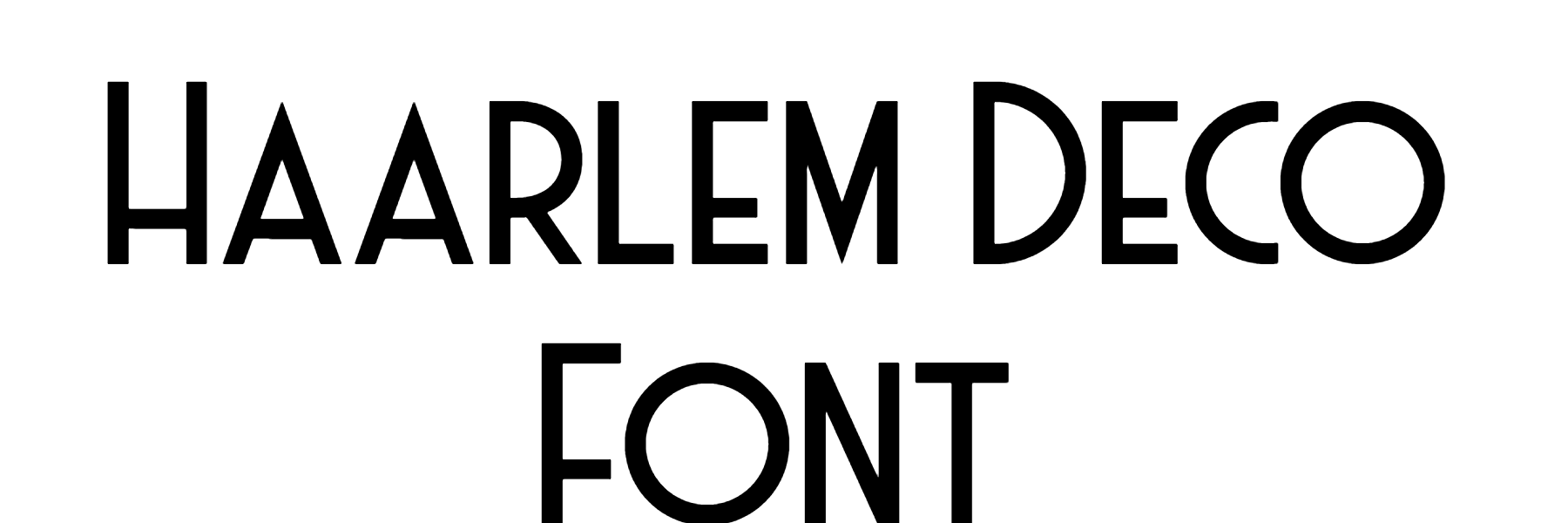
Haarlem Deco
Haarlem Deco is a fancy font made by Twicolabs Fontdation (2018). It's a decorative display font with plenty of personality, made to grab attention. It's a free download, and you can try it with your own text in the preview above first.
- Designer: Twicolabs Fontdation
- Characters: A–Z, a–z and basic punctuation
What You Can Type With Haarlem Deco
Haarlem Deco has the full alphabet in upper and lowercase. There are no numbers, so you'll need a second font for dates, prices or phone numbers. Common punctuation such as &, !, ? and @ is included as well. It doesn't include accented letters such as é or ñ, which makes it an English-only font.
Where Haarlem Deco Works Best
Think of Haarlem Deco for posters, logos and eye-catching headlines. Its lowercase letters are tall compared to the capitals, which keeps it readable at smaller sizes. Use it for one standout word or headline and let simpler fonts handle the rest.
Who designed Haarlem Deco font?
Haarlem Deco was designed by Twicolabs Fontdation. The copyright line inside the font is dated 2018. DafontStyle has 5 more fonts by Twicolabs Fontdation, and a few are linked above.
Does Haarlem Deco support accented letters?
No. Haarlem Deco has no accented letters such as é, ñ or ü, so it's best for English text.
Does Haarlem Deco have numbers?
No. Haarlem Deco has no numbers, so pair it with another font for dates, prices or phone numbers.